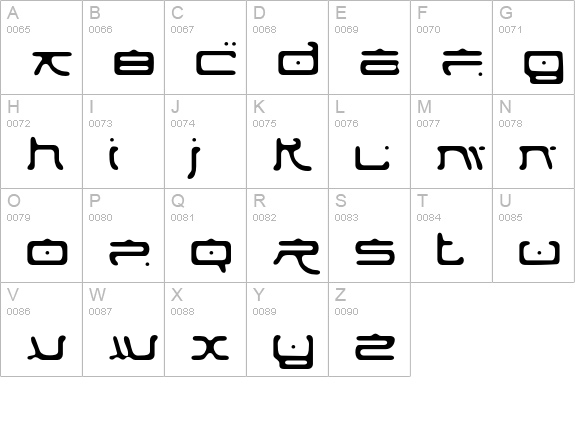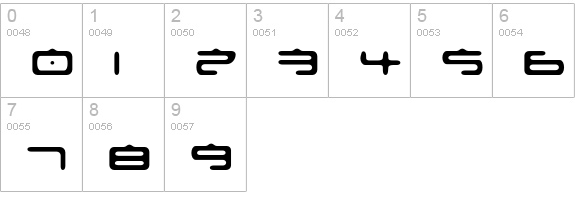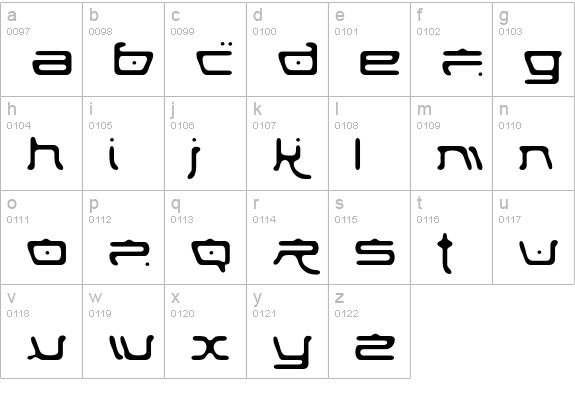
Fufanu Font Details
Fufanu font is a modern and stylish typeface that exudes sophistication and elegance. With its sleek lines and contemporary design, Fufanu is perfect for a wide range of design projects, from branding to editorial layouts. The clean and minimalistic aesthetic of this font makes it versatile and easy to read, making it ideal for both digital and print applications. What sets Fufanu font apart is that it is not only visually appealing but also free to download. You can easily access this beautiful font at FontsMarket.com without any cost, making it a valuable resource for designers and creatives looking to elevate their projects. Whether you're working on a branding project, a website design, or a print advertisement, Fufanu font is sure to make a bold statement and leave a lasting impression. Elevate your designs with Fufanu font today!